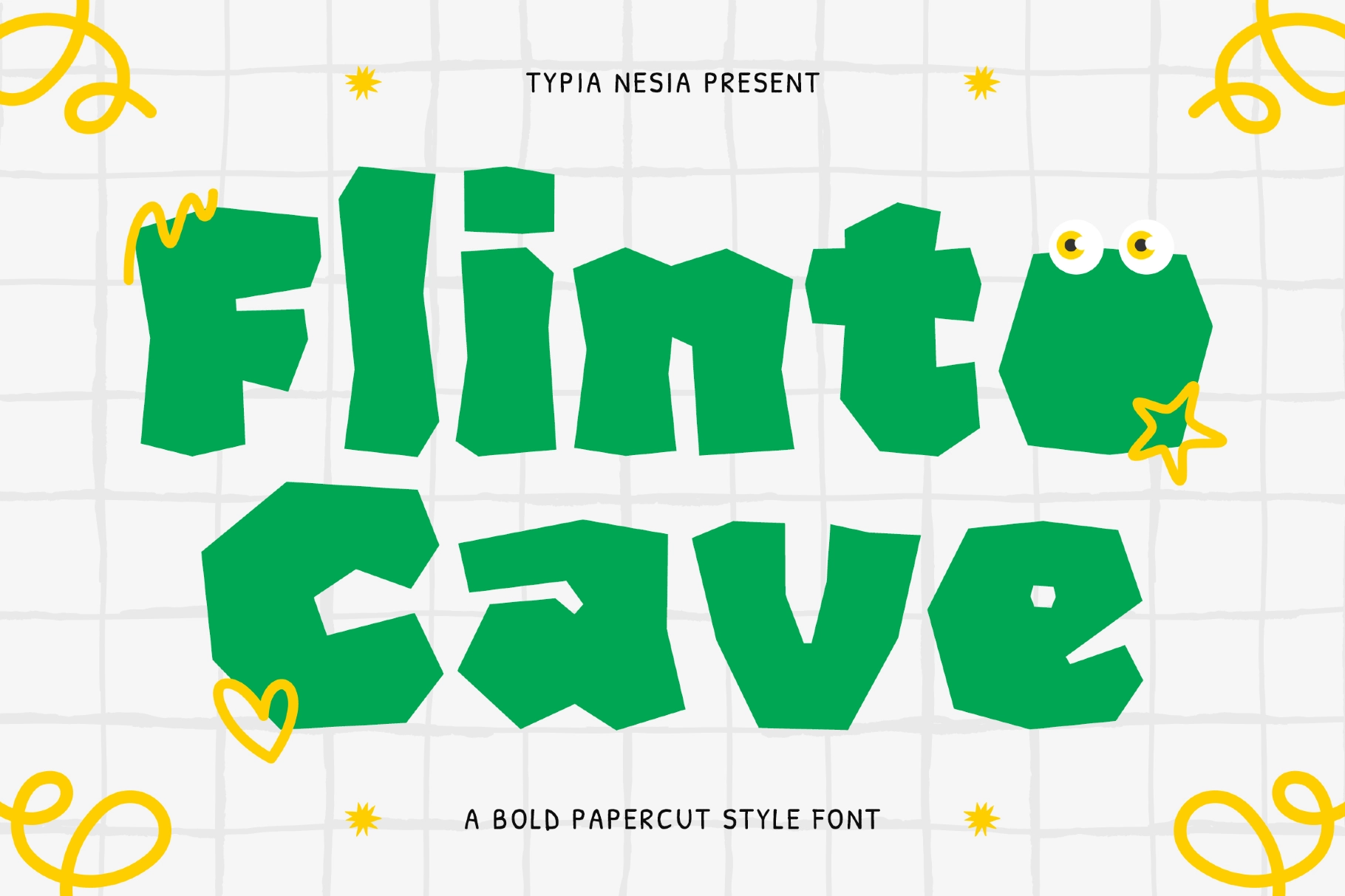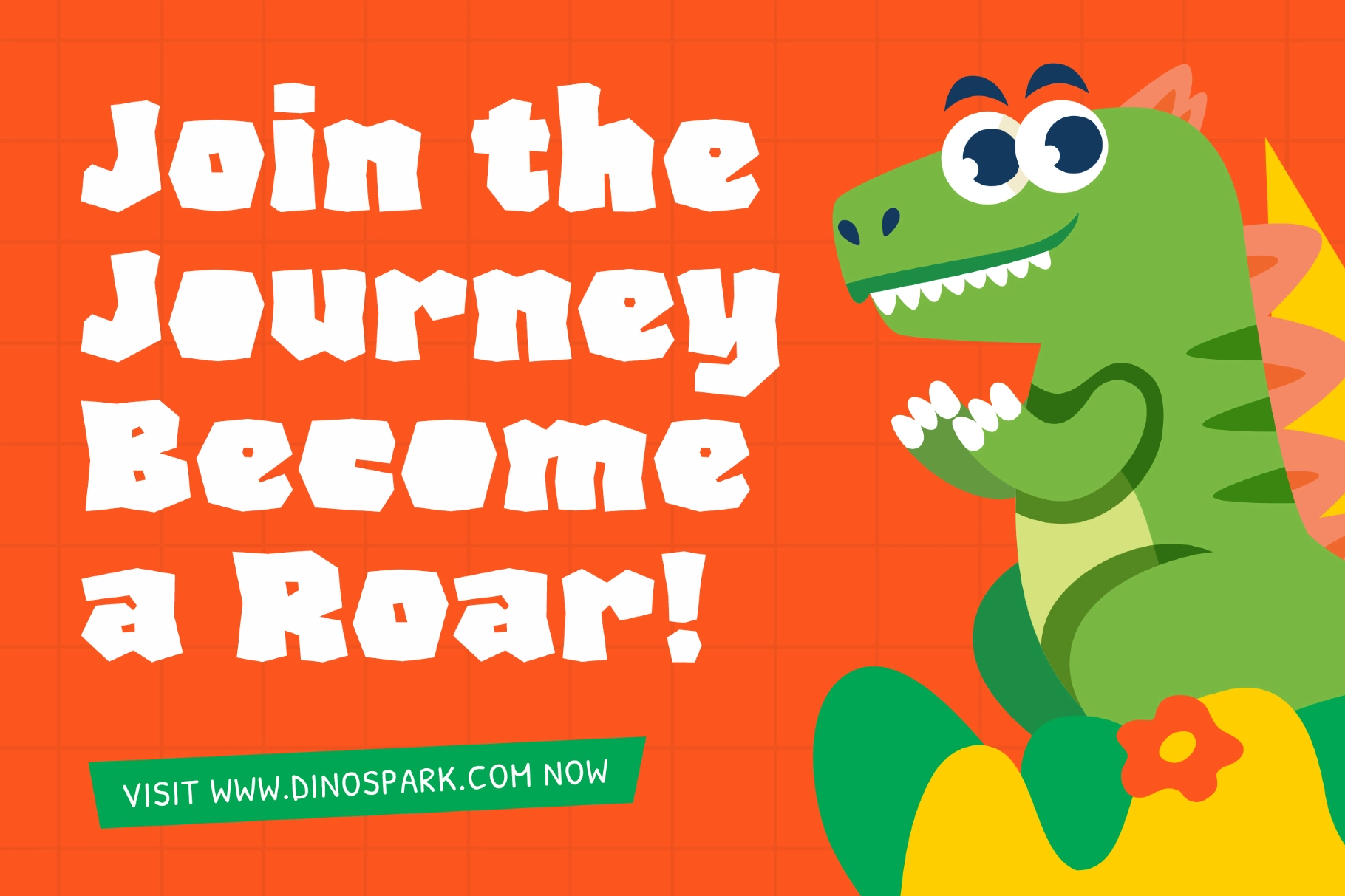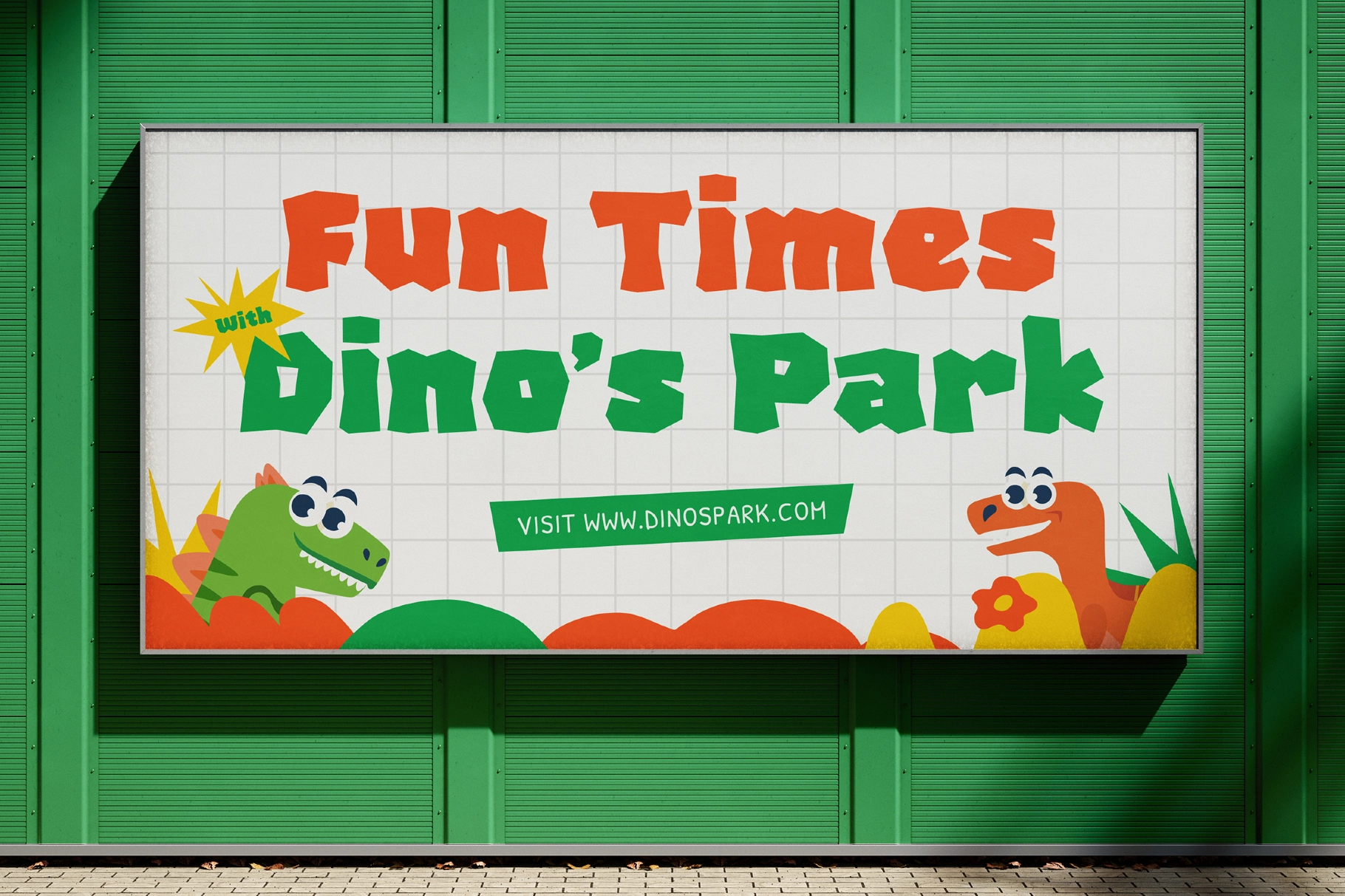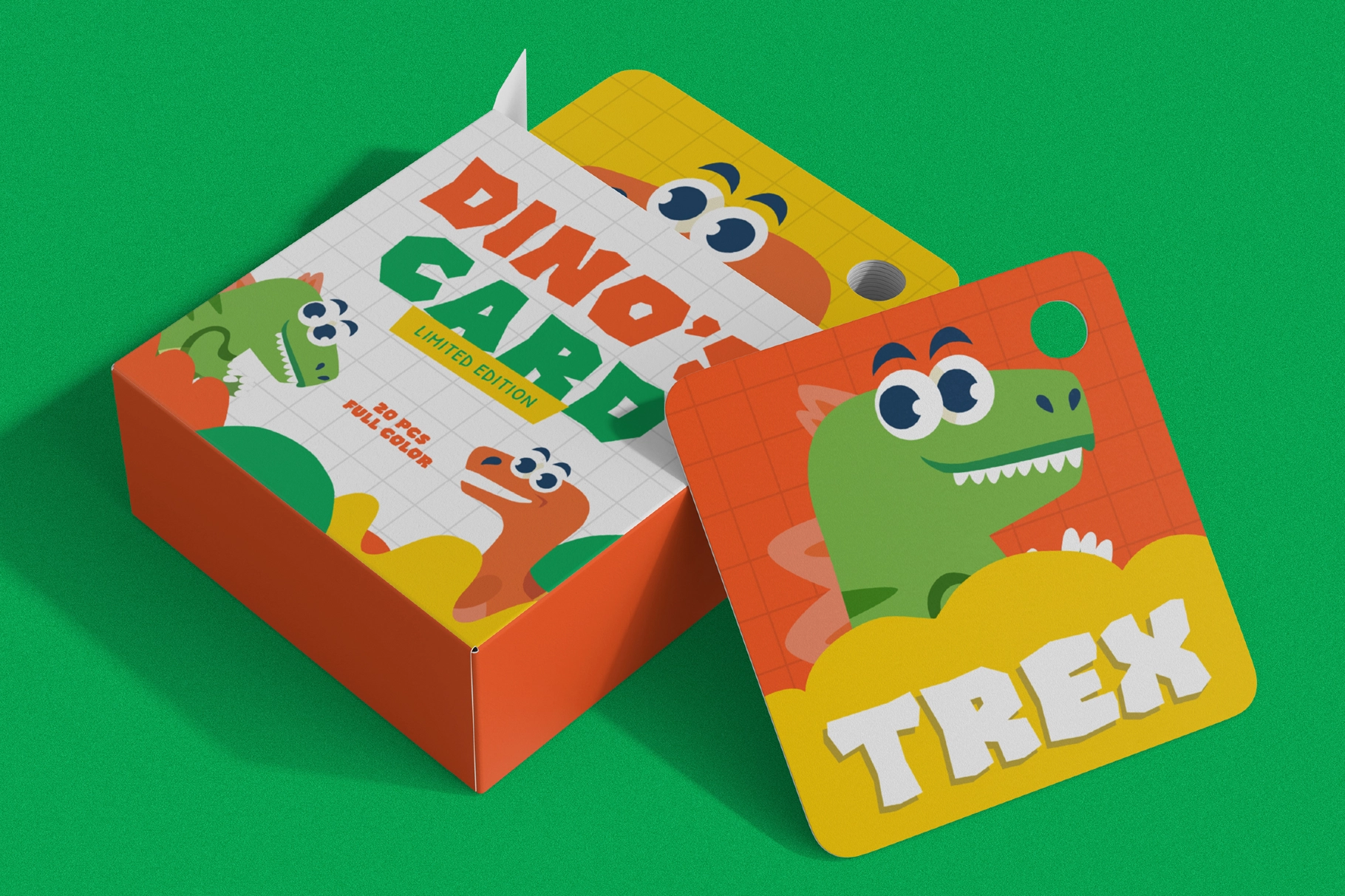
Flinto Cave - Handmade Bold Papercut Font
Flinto Cave – Handmade Bold Papercut Font captures the joyful spirit of handcrafted paper art in a bold and expressive display typeface. Inspired by layered cut-paper textures and organic shapes, this font features chunky letterforms with a tactile, handmade feel that instantly adds warmth and personality to your designs.
Perfect for book covers, children’s products, educational materials, cartoon branding, packaging, posters, and playful visual identities, Flinto Cave brings a friendly and approachable tone to both print and digital projects. Its distinctive papercut character makes headlines stand out while maintaining a fun and relaxed aesthetic.
• Bold, chunky display letterforms
• Distinct handmade papercut style
• Textured look inspired by real paper layers
• Great for titles, logos, packaging, and signage
• Ideal for children’s books, educational content, and game interfaces